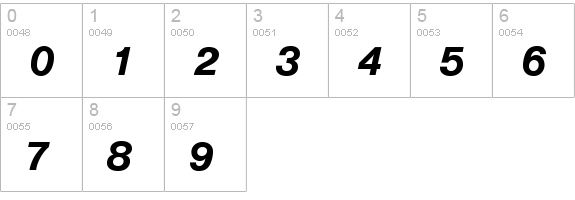
Olympia-BoldIta Font Details
Olympia-BoldIta is a striking and versatile font that exudes elegance and sophistication. Its bold and italic design adds a touch of modernity to any project, making it perfect for headlines, titles, and branding materials. The unique combination of boldness and italics creates a dynamic visual impact that captures attention and leaves a lasting impression. What sets Olympia-BoldIta apart is not only its stylish appearance but also its versatility. Whether used for print or digital designs, this font adapts seamlessly to various mediums and applications, making it a go-to choice for designers and creatives looking to make a statement. The best part? Olympia-BoldIta is free to download at FontsMarket.com, offering you the opportunity to elevate your projects with a premium-quality font without breaking the bank. Don't miss out on the chance to enhance your designs with Olympia-BoldIta's bold and italic charm – download it today and unleash your creativity!